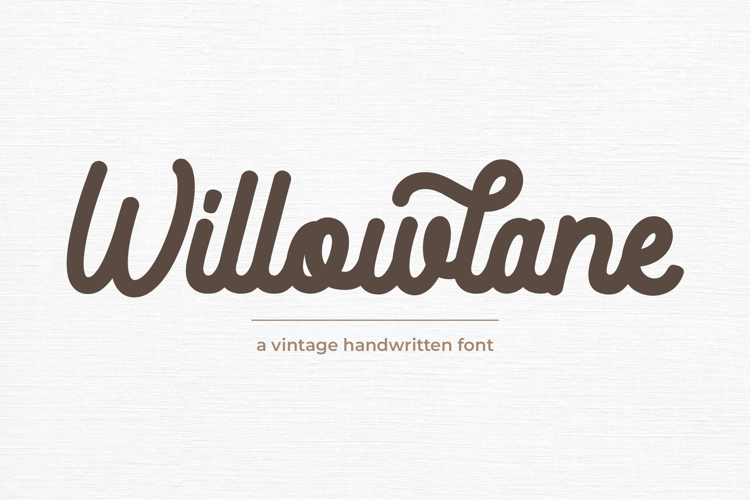
Willowlane is a charming handwritten font with a warm vintage soul.
It comes with 294 characters including 74 alternates, contextual alternates (calt), and stylistic sets (ss01–ss04) to give your text a truly handcrafted feel.
Perfect for crafting projects, greeting cards, gift tags, stickers, mug designs, quotes, and branding with a vintage touch.